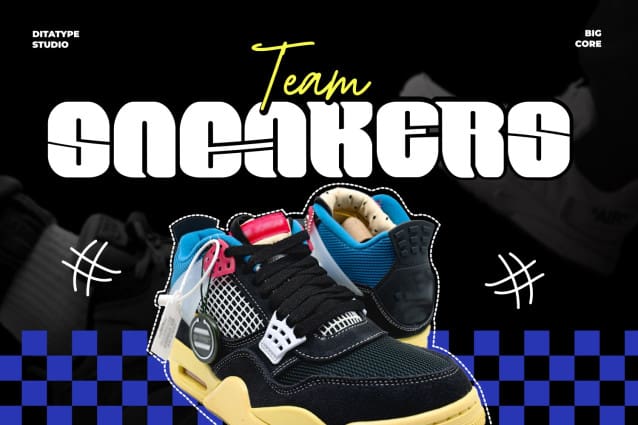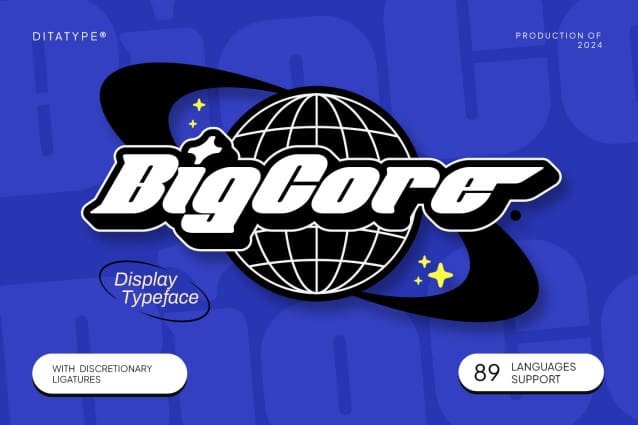
Big Core Font
Big Core Font is a powerful display font designed to make a bold statement with its uppercase letters and striking weight. Each uppercase letter is meticulously crafted to command attention and convey a sense of authority. The bold weight of the font ensures maximum visibility, making it ideal for capturing the viewer’s attention from a distance.
Despite its boldness, Big Core maintains a sense of elegance and sophistication with its clean lines and low contrast. This allows the font to retain clarity and readability, even at larger sizes, ensuring that your message is delivered with impact and professionalism. With Big Core, you have a display font that embodies strength, confidence, and authority.